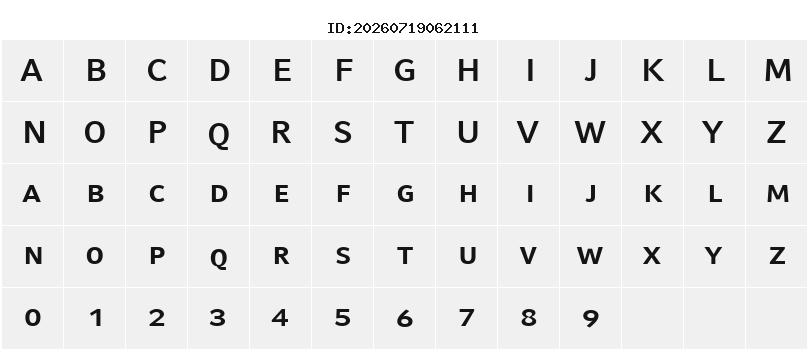
CompatilFact LT Preview
• Font Name: CompatilFact LT
• Full Font Name: CompatilFact LT Alternate Bold Small Caps
About CompatilFact LT.ttf
CompatilFact LT.ttf is a modern, elegant sans-serif font designed for ultimate readability and visual harmony. Perfect for branding, headlines, web design, and print materials.